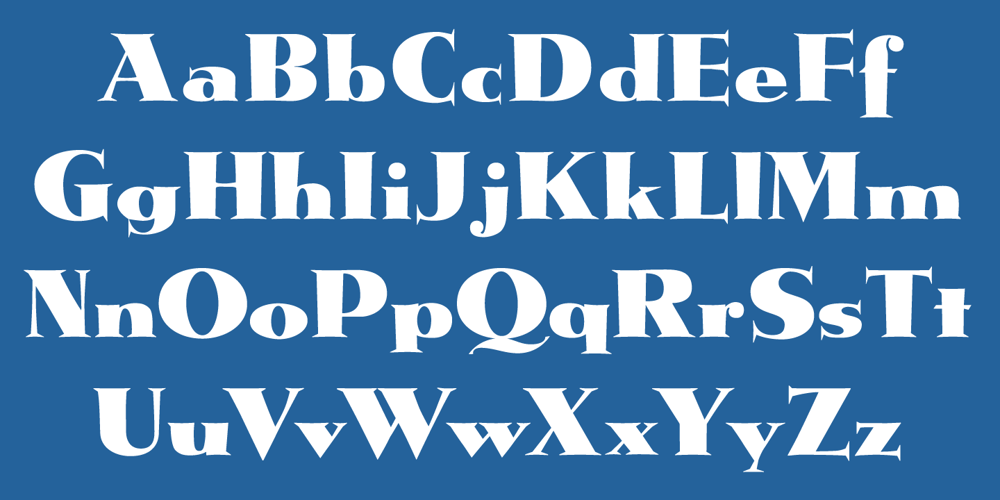
Metropolis CT
Metropolis CT font
Metropolis CT Font Family was designed by Jason Castle and published by CastleType. Metropolis CT contains 2 styles and family package options. Metropolis Bold was commissioned by Publish magazine for their 1990 redesign. Although other digital versions exist, I think this was the first one and is characterized by extremely pointy serifs. It is well to remember in laying out copy for Metropolis to allow plenty of white space in the layout. Metropolis is based on the 1932 Stempel cut as designed by W. Schwerdtner.